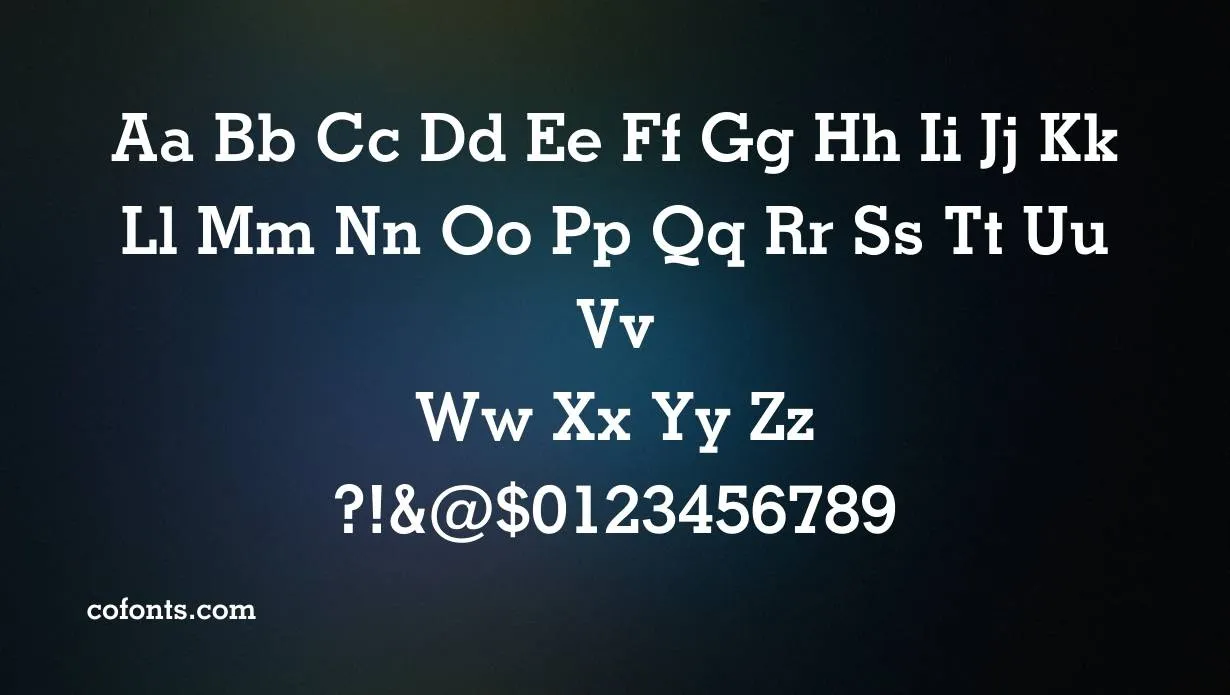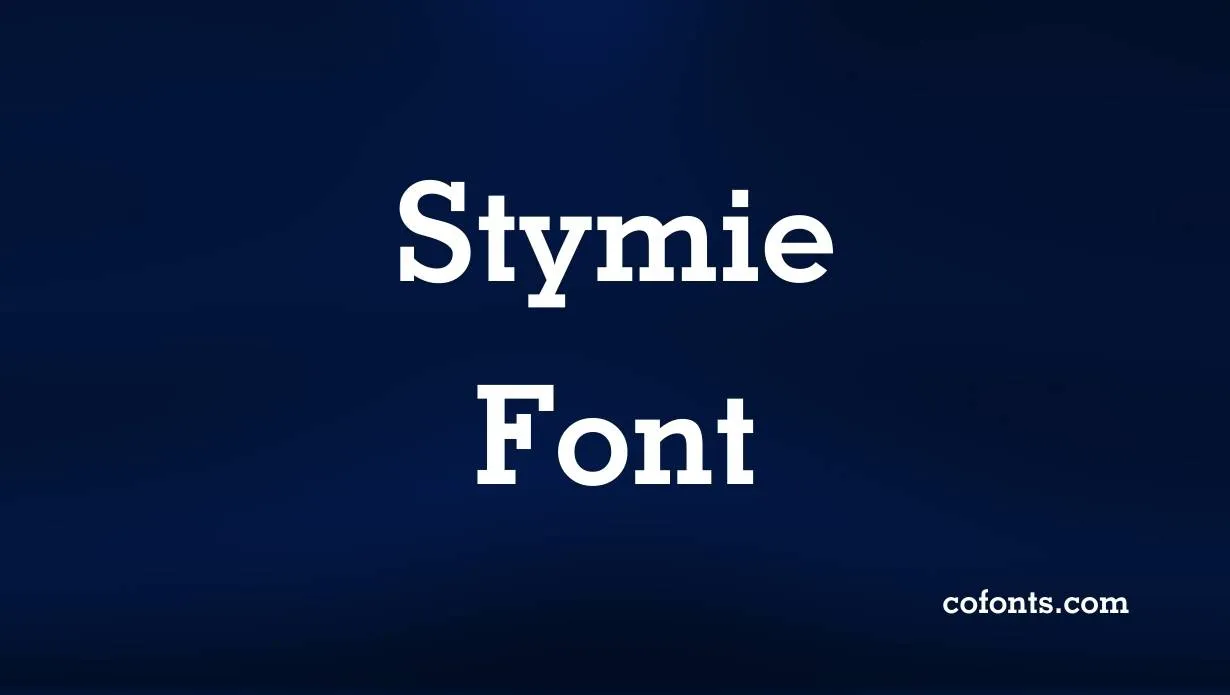
About Stymie Font
Created during the zenith of American type design, Stymie Font stands as a quintessential geometric slab serif, characterized by its robust, block-like serifs and monolinear stroke weight. Originally released by the Mergenthaler Linotype Company, its design exudes a sense of solidity, clarity, and straightforward confidence, drawing from the same rational principles as its sans-serif counterpart, Futura. While inherently bold and authoritative for headlines and display work, Stymie's various weights also provide surprising versatility, offering a distinct, retro-futurist voice that brings timeless impact to posters, branding, and editorial design seeking a touch of mid-century modern strength.